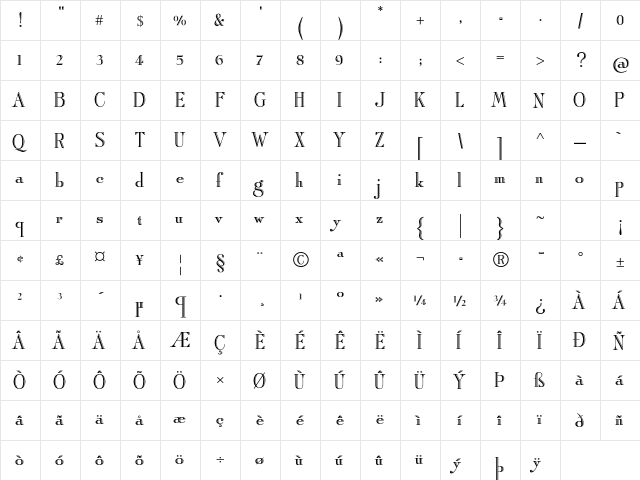
Artisan Roman Std Regular
Design Context for Artisan Roman Std Typeface
Artisan Roman Std is a composed and adaptable typeface that performs quietly and consistently across a wide range of design contexts.